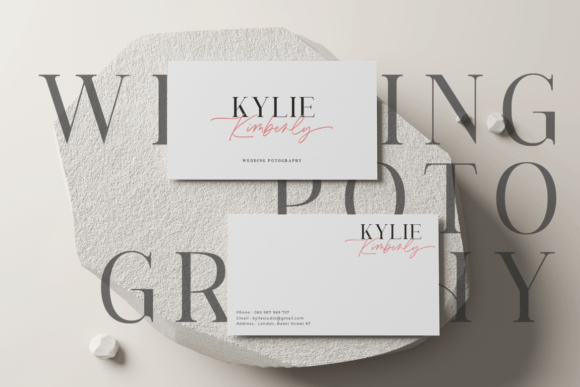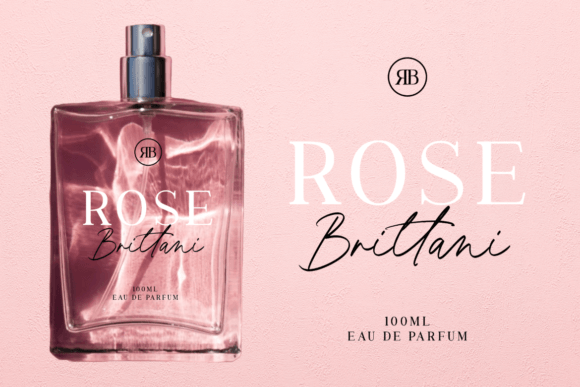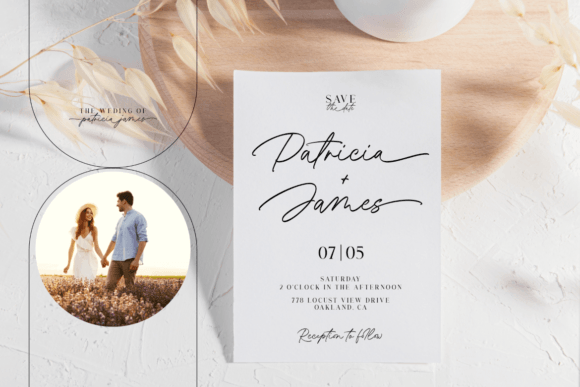
Candara Beauty Duo Font
Candara Beauty is a stylish font duo that includes both a classic serif and an elegant script version. It’s perfect for weddings, Valentine’s Day, branding, packaging, and any project that needs a loving touch. This font supports multiple languages and offers alternates, swash, and ligatures in the script version for added customization. With its modern charm, Candara Beauty adds sophistication and beauty to any project.Keep in mind that the font is PUA encoded, meaning that you can access all delightful glyphs and swashes effortlessly.